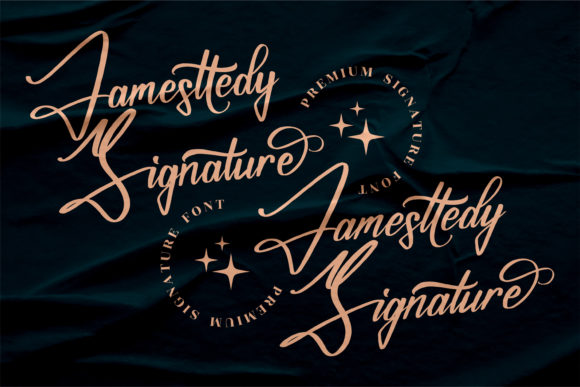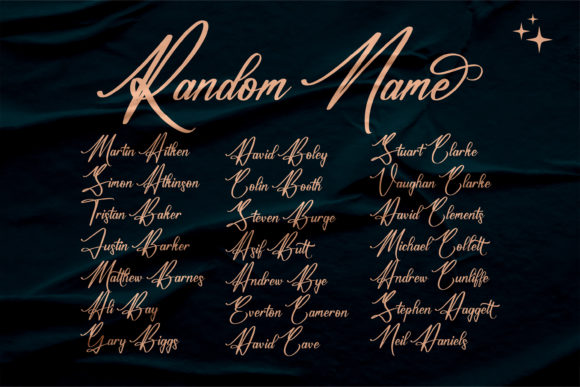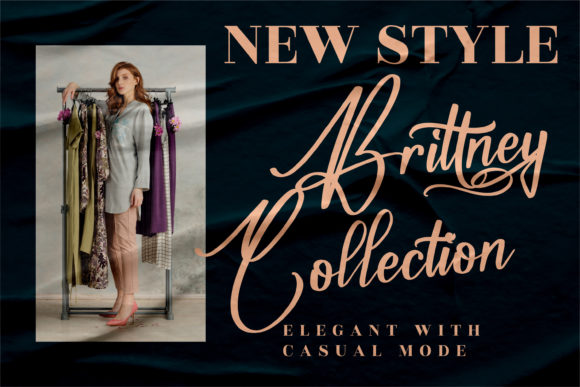
Introduction to Jamesttedy Signature Font
Have you ever been working on a creative project, pouring your heart and soul into it, and then suddenly you stumble upon the perfect design element that brings everything together? That’s exactly what happened to me when I discovered the Jamesttedy Signature Font. Its sweet and cursive handwritten style is a game-changer for any design project.
As a designer, you know how valuable a high-quality font can be. Not only does it elevate the overall aesthetic of your design, but it also helps to convey the tone and personality of your brand. The Jamesttedy Signature Font is a must-have design resource for anyone looking to add a touch of elegance and sophistication to their work.
With its PUA encoded features, you can easily access all of the glyphs and swashes, making it perfect for designers who want to create unique and eye-catching designs. Whether you’re working on a project that requires a transparent background or a free download, the Jamesttedy Signature Font is a versatile and reliable choice.
Key Features of Jamesttedy Signature Font
- High-quality, professional font design ideal for creative projects and personal branding
- Unique characteristics: Jamesttedy Signature Font features a distinctive, handwritten style with a personal touch, making it perfect for signatures, quotes, and other creative applications
- Designed to be used in various contexts, from digital to print, making it a versatile design resource
Honest Review: Jamesttedy Signature Font
I recently stumbled upon the Jamesttedy Signature Font and was excited to give it a try in my next creative project. As a designer, I’m always on the lookout for high-quality design resources to elevate my work.
Here are some things that work well with the Jamesttedy Signature Font: ✨
- It has a unique and stylish aesthetic that adds a touch of sophistication to any design.
- The font is highly legible, making it perfect for both digital and print applications.
However, I did encounter a few limitations: ⚠️
- The font doesn’t support transparent backgrounds, which can be a bit restrictive for designers who want to use it in complex compositions.
- The character set is limited, so you may not have access to all the characters you need for your project.
Overall, I’d say the Jamesttedy Signature Font is a solid choice for designers who want a high-quality, unique font for their creative projects. While it has some limitations, its free download and stylish aesthetic make it a great value for the price.
Tips and Best Practices
To get the most out of the Jamesttedy Signature Font, use it with a transparent background to create a seamless design. This font is perfect for creating logos, branding materials, and other design elements that require a high level of sophistication.
The Jamesttedy Signature Font is commonly used in:
- Branding materials
- Business cards
- Brochures
Alternatives to Jamesttedy Signature Font
Pacifico is a beautiful, high-quality script font perfect for creative projects that require a touch of elegance. It’s ideal for designs that need a transparent background and a delicate, handwritten feel. Use Pacifico for wedding invitations, greeting cards, or any project where you want to add a sophisticated touch.
Pacifico is similar to Jamesttedy Signature Font in its elegant and refined feel, but it has a more subtle and understated design. Pacifico is a free download and can be used for personal or commercial projects.